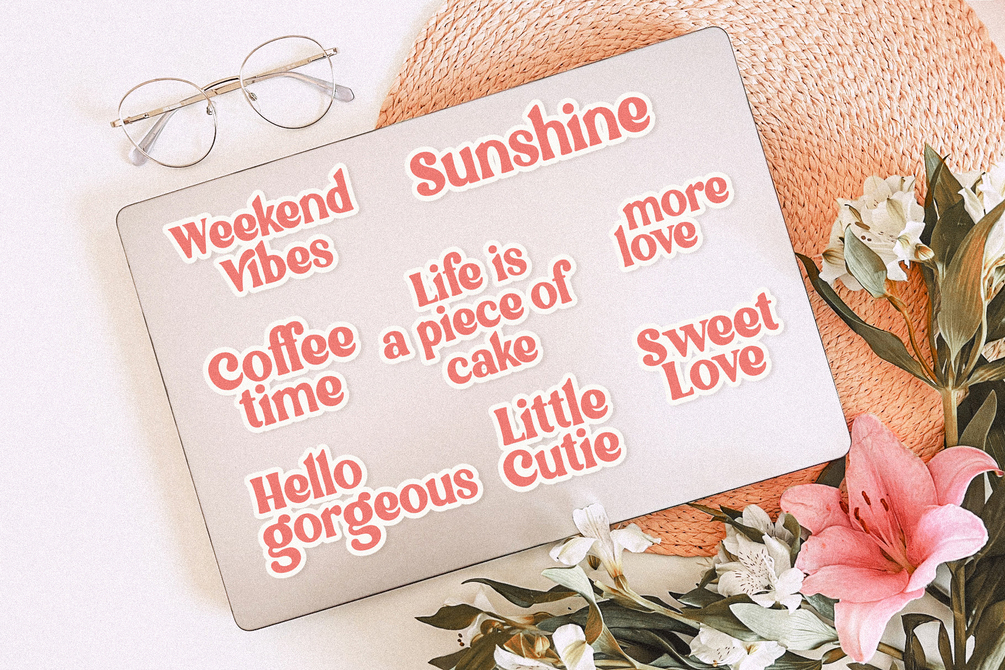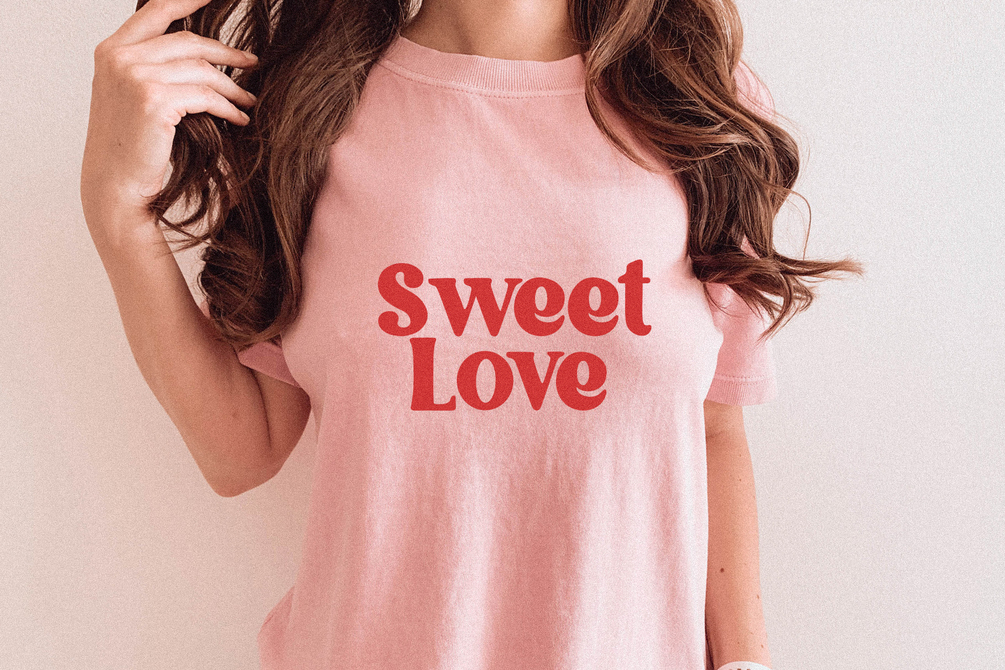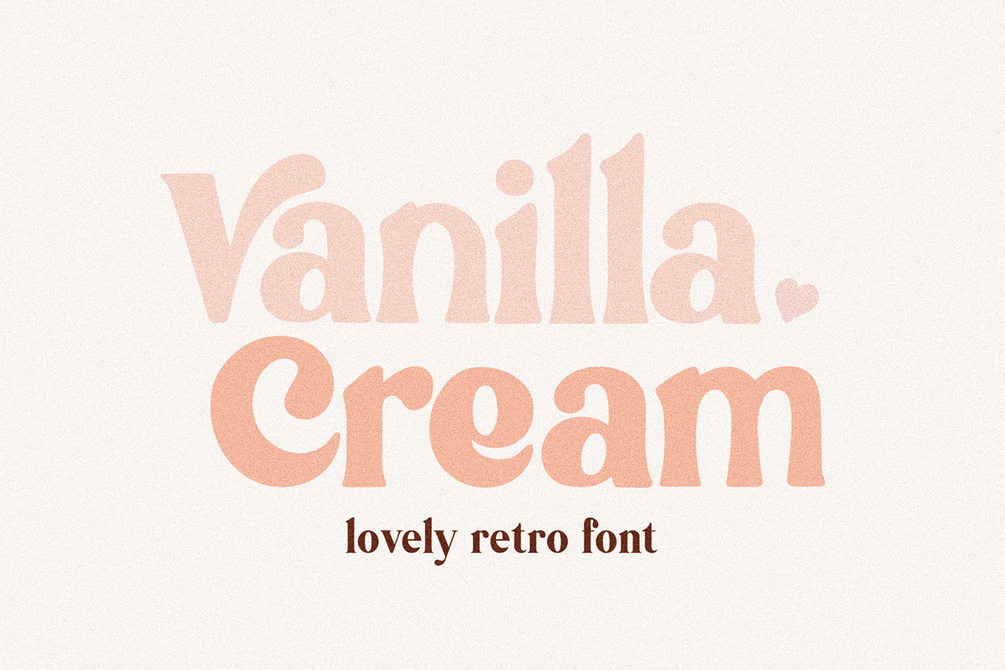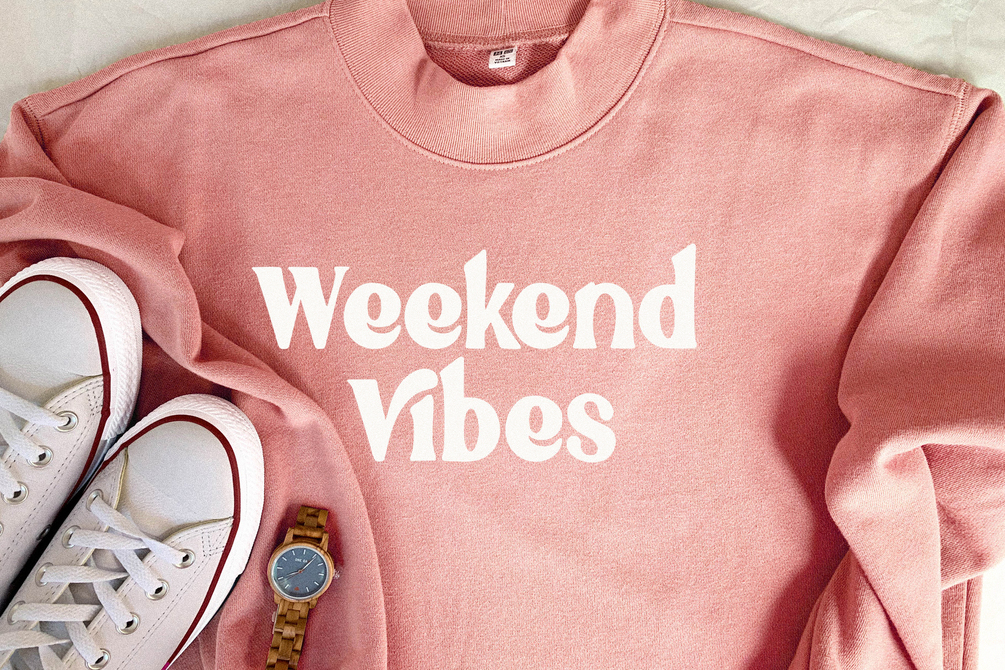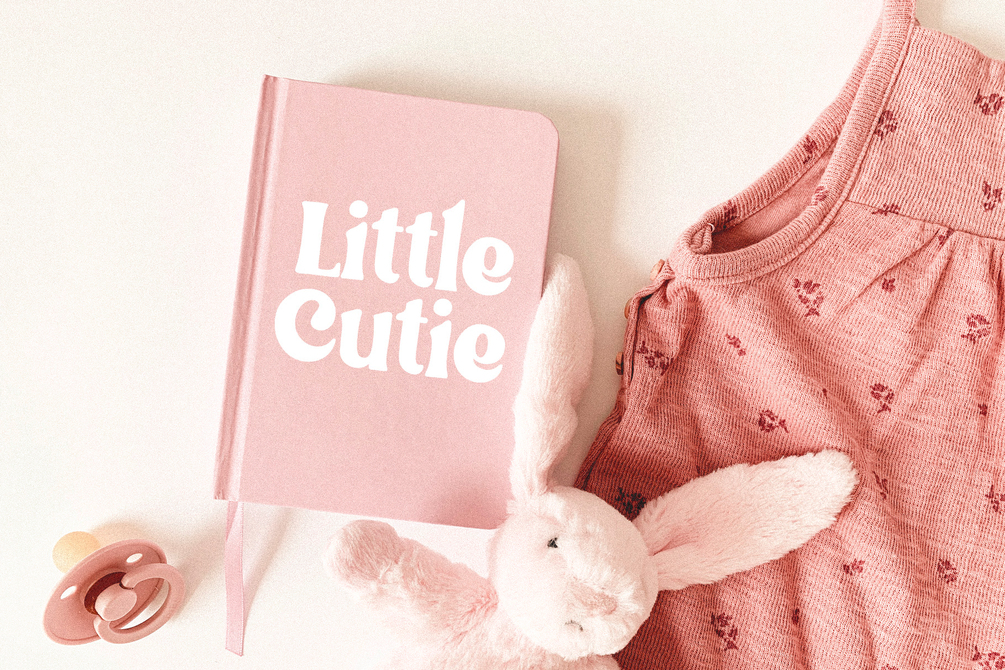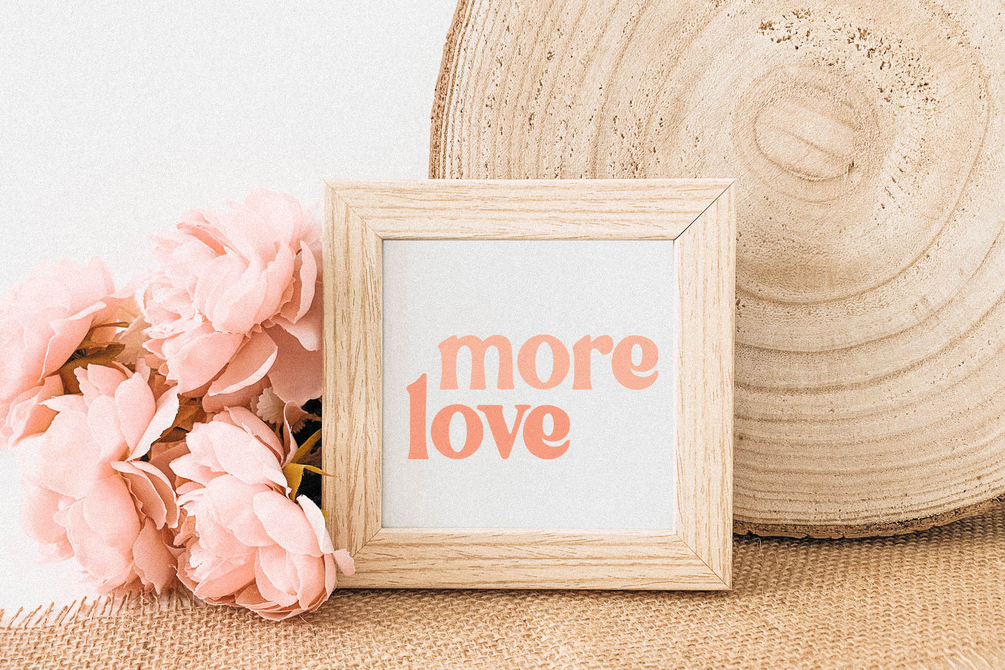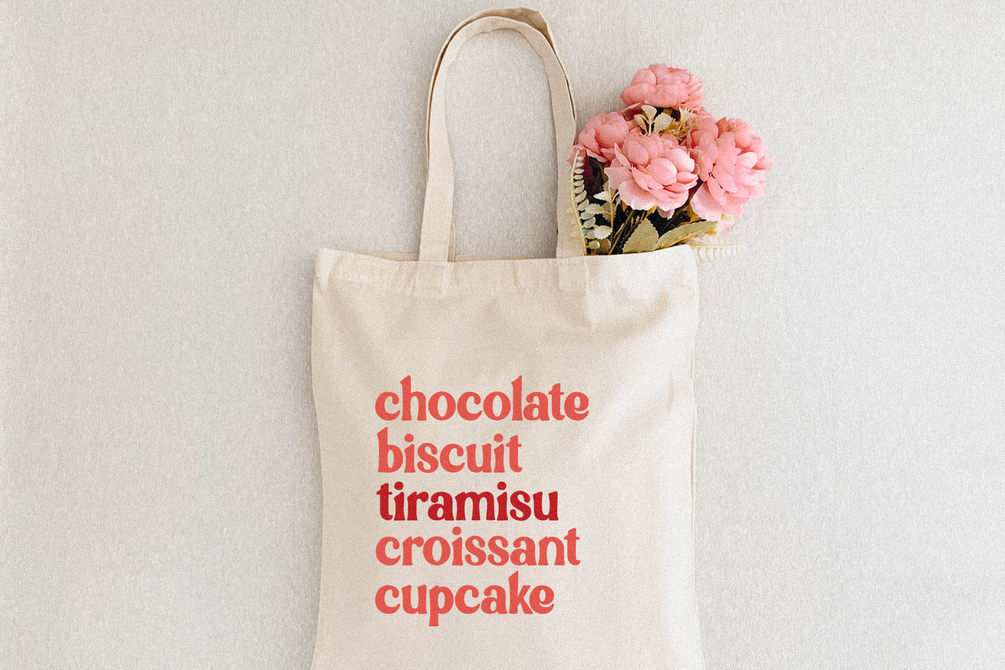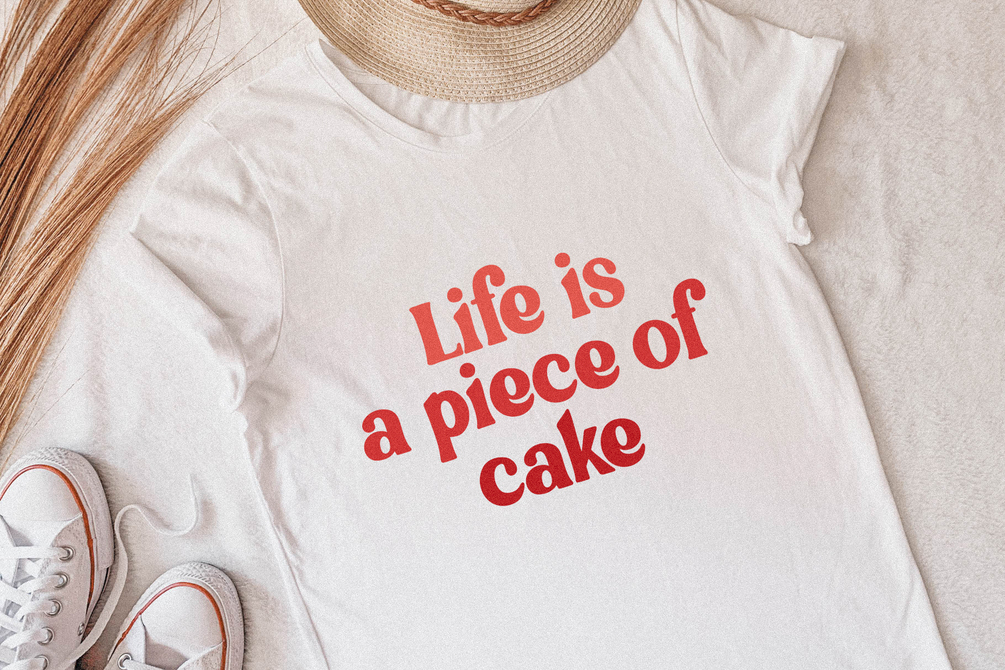
Vanilla Cream Retro Font
Vanilla Cream a cute retro handwritten font. Perfect to create stickers, quotes, t-shirt designs, mug designs, prints, cricut projects, sublimation designs and svg files.